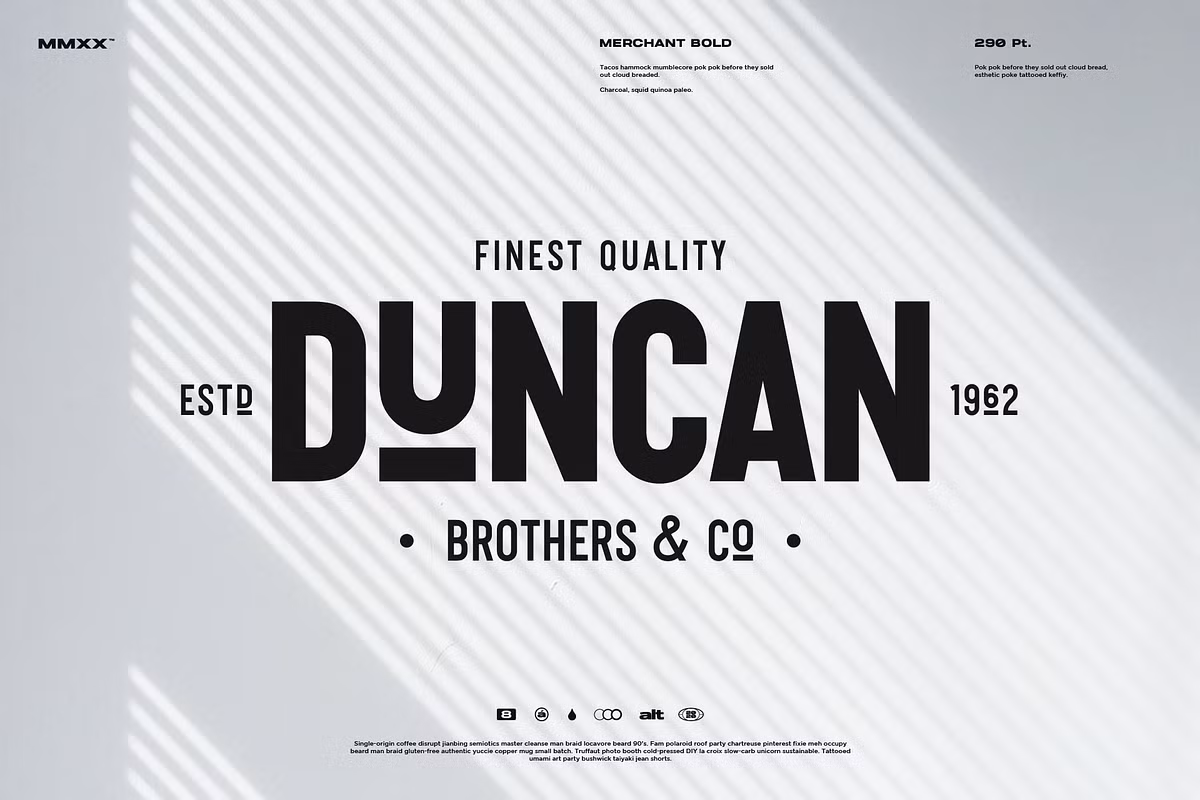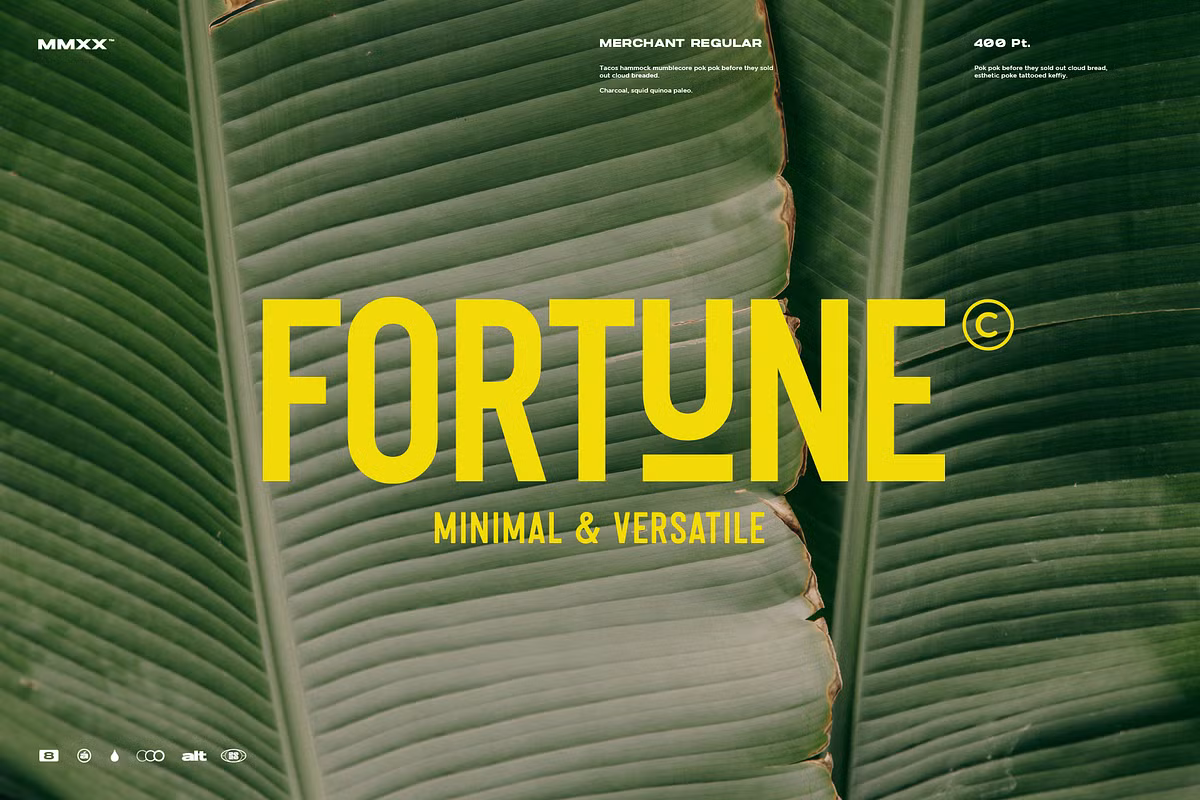
Merchant: Versatile Display Typeface with 8 Fonts and 500+ Glyphs
Introducing Merchant Typeface
Merchant is a really versatile font that grabs attention in a world full of different typography styles. It comes with 8 unique fonts, giving designers a lot of options to make a big impact. What’s more, it has over 500 special alternate glyphs that let you customize your design to your heart’s content. This means you can make your projects truly one-of-a-kind and expressive, which is perfect for designers who want to stand out.
With so many styles and weights to choose from, Merchant is a great choice for anyone looking to add some personality to their designs. Whether you’re working on a big project or just want to add some flair to your work, Merchant’s got you covered. Its condensed sans serif style makes it perfect for display purposes, and the fact that it’s so versatile means you can use it in a variety of contexts. Overall, Merchant is a fantastic font for designers who want to make a statement and bring their creative vision to life.
Design Style of Merchant
The Merchant typeface has a unique style that’s easy to recognize. It’s got a condensed shape, which means it’s narrower than other fonts, and clean lines that give it a modern look. This makes it perfect for using in small spaces where you want to make a big impact.
Because it doesn’t have serifs, the little lines at the ends of letters, it feels very contemporary and fresh. That’s why it’s often used for things like branding, advertising, and digital media, where you want to grab people’s attention and look up-to-date. The overall effect is a font that’s both stylish and versatile, making it a great choice for designers who want to create a strong visual identity.
The fonts in the Merchant family have been carefully designed to look good at all sizes. They use simple shapes that fit well together, making them easy to match with other fonts. This means Merchant can be used for both serious and casual projects, and it will always look like it belongs.
Character Sets and Glyph Variety
The Merchant typeface really stands out with its huge collection of characters – we’re talking over 2300 glyphs. This means you’ve got a vast range of letters, numbers, punctuation marks, and special characters to choose from, so you can create something that perfectly fits your design.
And what’s more, there are over 500 alternate glyphs, giving you the freedom to customize and pick the variations that best match your unique style and vision. This level of flexibility is a game-changer, allowing you to add your own personal touch to your designs.
Whether you’re working on a project that requires a classic look or something more modern and edgy, the Merchant typeface has got you covered. With its impressive character set and customization options, you can create something truly unique and eye-catching.
Merchant is a great choice for projects that need to work in many languages. It has a wide range of characters, so you can use it for international audiences or just to add something special to your design. This means you can meet all your typography needs, no matter what language you’re working with. The diverse character set is really useful, whether you’re designing for a global audience or just want to give your project a unique touch.
Use Cases for Merchant Typeface
Merchant is a versatile typeface that can be utilized across a multitude of design projects. Its bold and modern appearance makes it perfect for:
- Branding: Create memorable logos that stand out in a crowded marketplace.
- Advertising: Use Merchant in posters, flyers, and online ads to capture attention quickly.
- Web Design: The typeface’s legibility at various sizes makes it suitable for websites, ensuring users can read the content easily.
- Print Media: From business cards to brochures, Merchant’s clean lines enhance the overall look of print materials.
- Merchandise: Utilize the typeface for t-shirts, bags, and other products where visually striking typography is essential.
With its adaptability, Merchant can fit seamlessly into any design context, making it an indispensable tool for designers.
Pairing Suggestions for Merchant Typeface
To enhance the versatility of the Merchant typeface, consider pairing it with complementary fonts that bring out its strengths. Here are a few suggestions:
- Serif Fonts: Pair Merchant with a classic serif typeface like Merriweather or Playfair Display. The contrast between the modern sans serif and the traditional serif creates a visually appealing balance.
- Geometric Fonts: Combining Merchant with geometric typefaces such as Montserrat or Raleway can create a cohesive and contemporary look.
Whether you’re working on a brand’s identity, designing printed materials, or creating digital content, Merchant gives you the flexibility and flair you need to make a real impact. With all the creative possibilities it offers, Merchant can help you take your design projects to new and exciting heights. By using Merchant, you can add a touch of elegance and sophistication to your work, and make your designs stand out from the crowd.